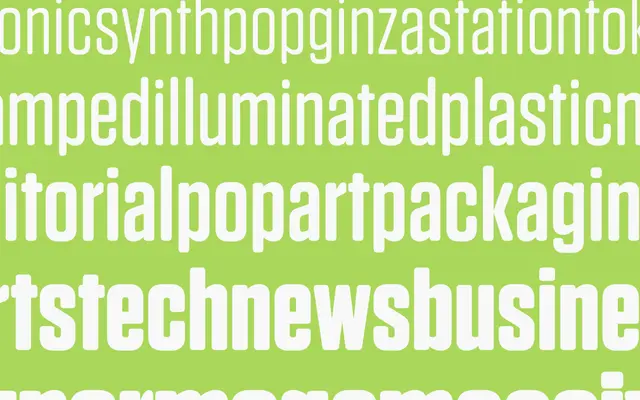
Tungsten Rounded
Hoefler & Co · Jonathan Hoefler, Berton Hasebe · 2013
The rounded cut of Tungsten, swapping straight terminals for soft ones to keep the same compressed authority with a warmer voice.
A rounded compressed sans by Jonathan Hoefler and Berton Hasebe that softens Tungsten's terminals without changing its metrics. Seven weights from Thin to Black with matching italics, designed to sit alongside the parent family. Used where a campaign or sports identity wants Tungsten's tight horizontal economy with a friendlier finish, particularly on packaging and signage.
H&Co frame Tungsten Rounded as the softened cut of Tungsten, replacing the family's straight terminals with rounded ones for a warmer, more inviting voice while keeping the same metrics.